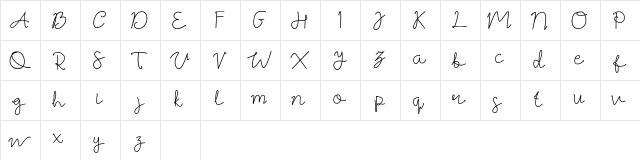
Best Signature Font Regular
Design Context for Best Signature Font Typeface
Best Signature Font is a composed and adaptable typeface that performs quietly and consistently across a wide range of design contexts.